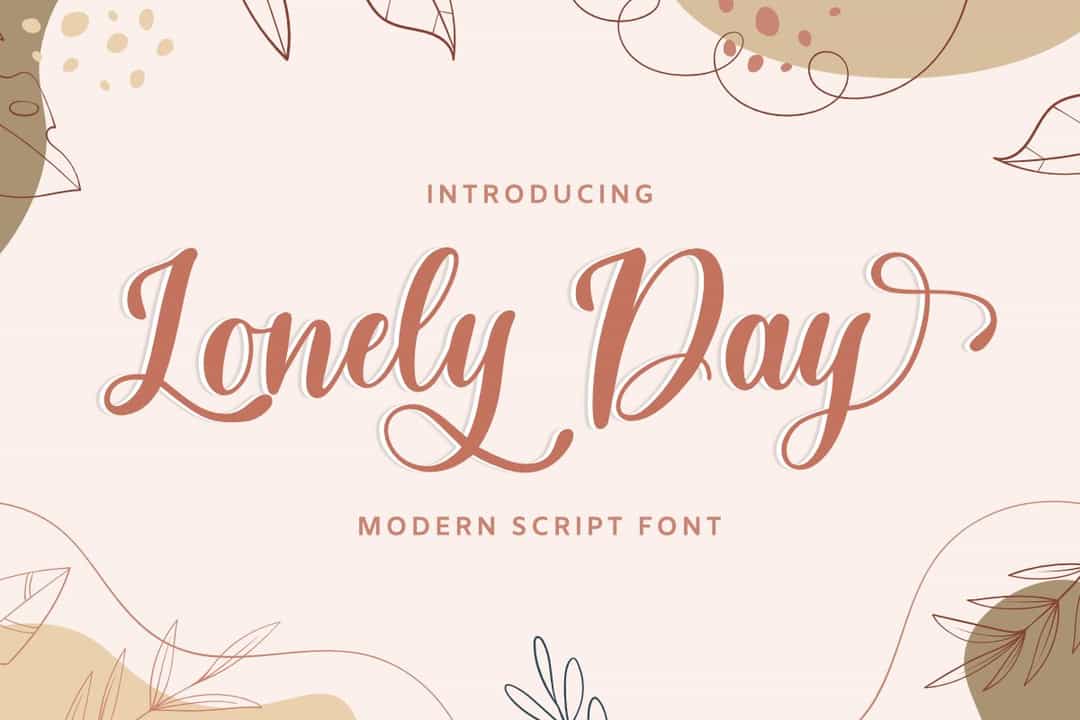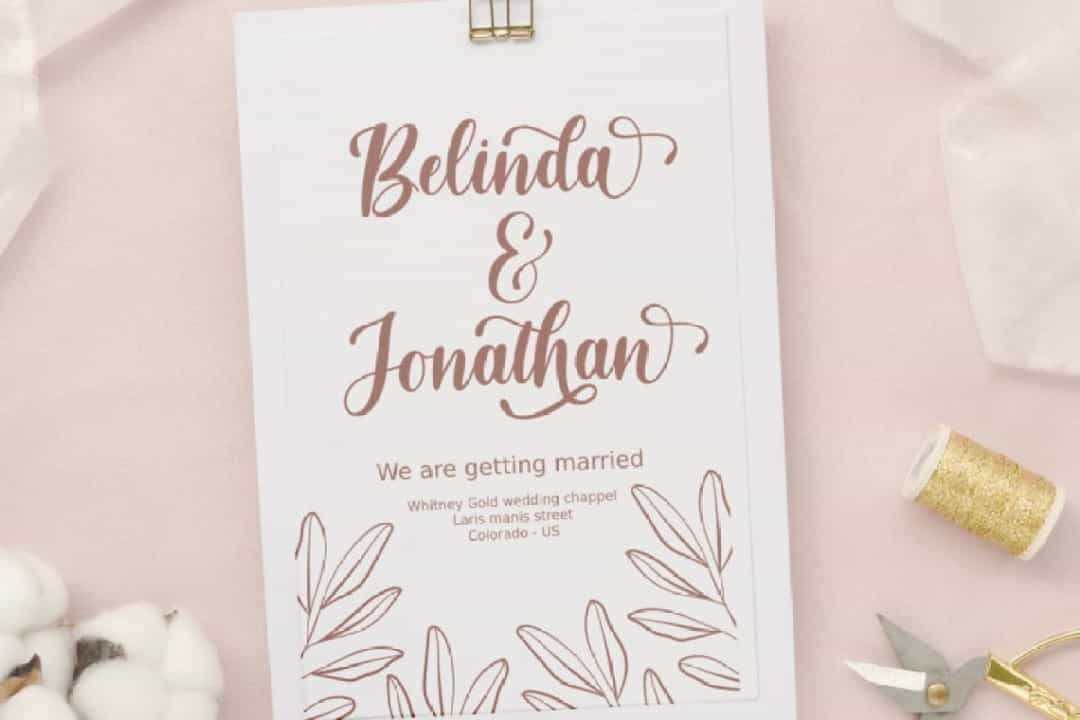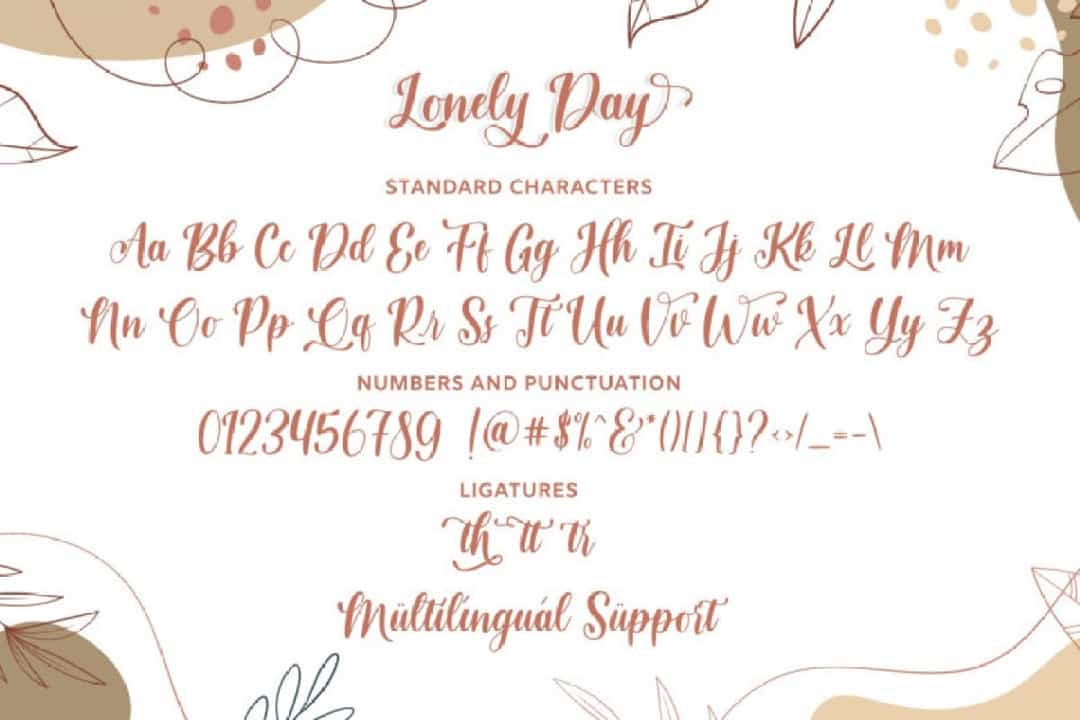
Lonely Day – an elegant and expensive calligraphy script featuring additional ligatures and alternate stylistic sets dancing above and beneath each letter, has an entertaining theme, making it suitable for logos and wedding invitations.